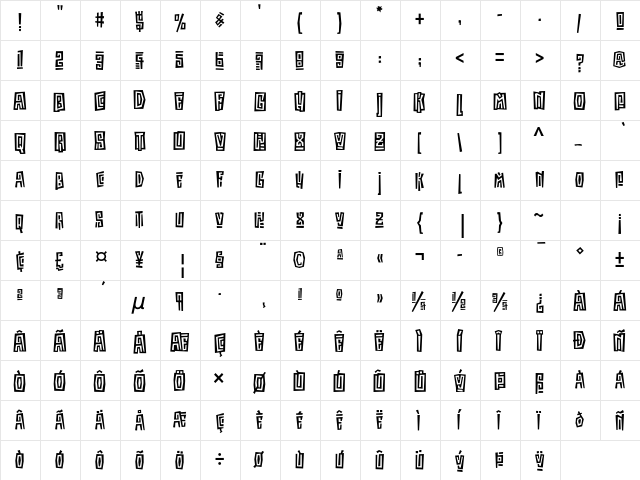
Kokoa ITC Std Regular Font Preview
Kokoa ITC Std Regular
Kokoa ITC Std Regular Font Details
| Designer | Jochen Schuss |
Design Context for Kokoa ITC Std Typeface
Kokoa ITC Std is a composed and adaptable typeface that performs quietly and consistently across a wide range of design contexts.